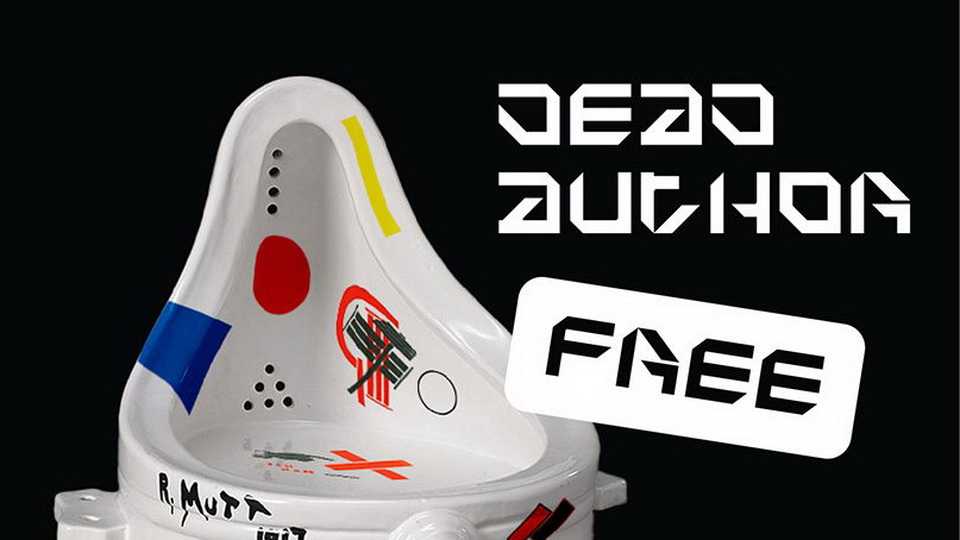
Download Dead Author font, a geometric display typeface that can be adapted to any image, be it a sign / symbol or a realistic image on the example of the historical development of world art.
Designer: Sergey Vasenin